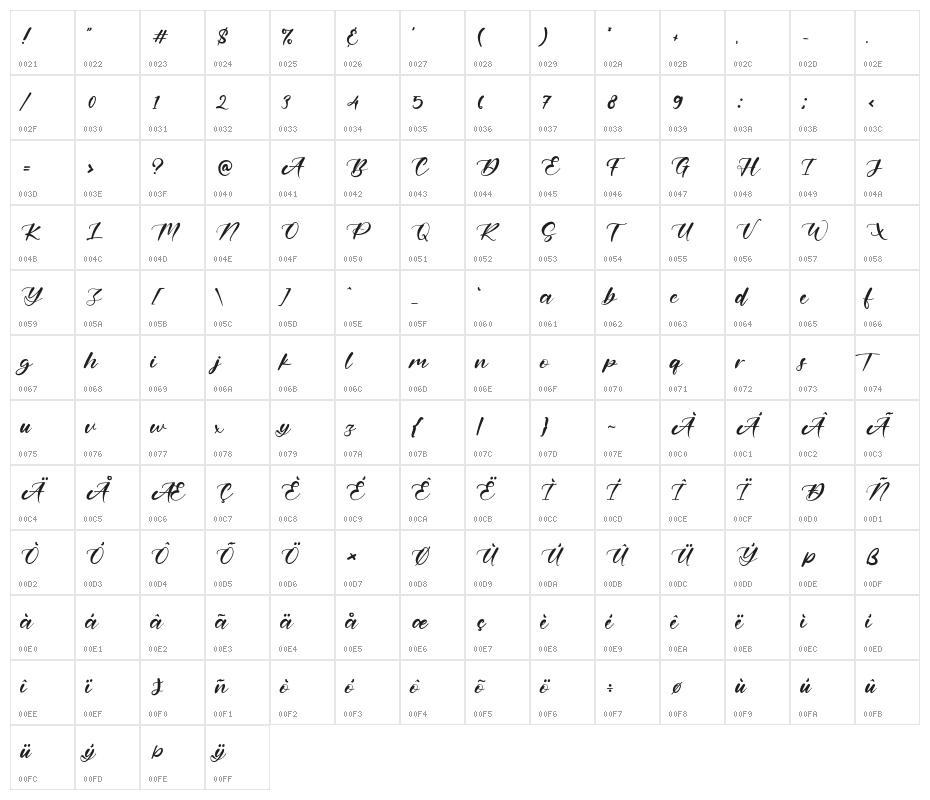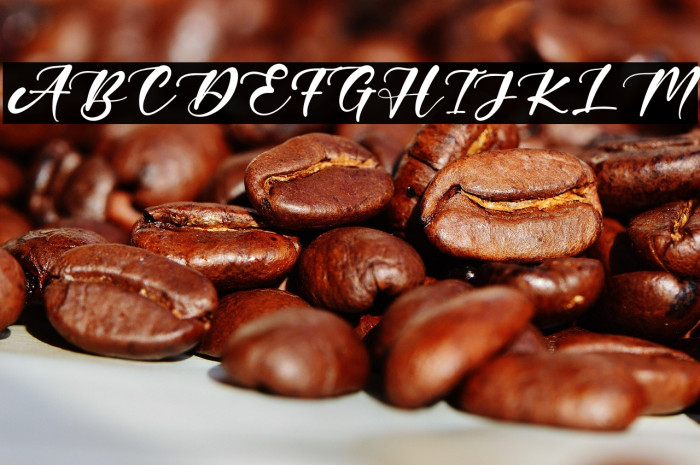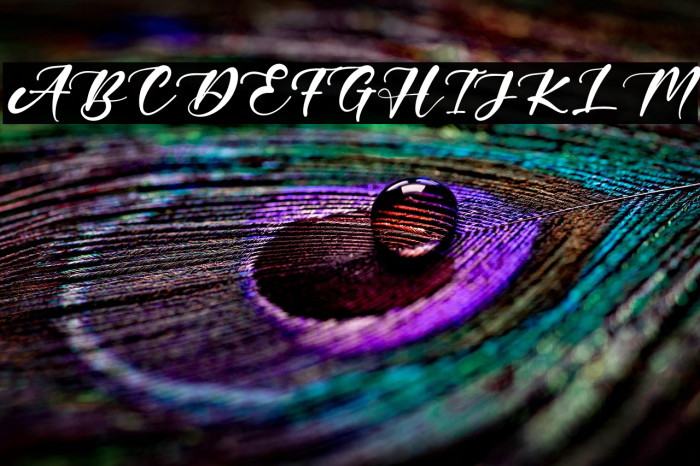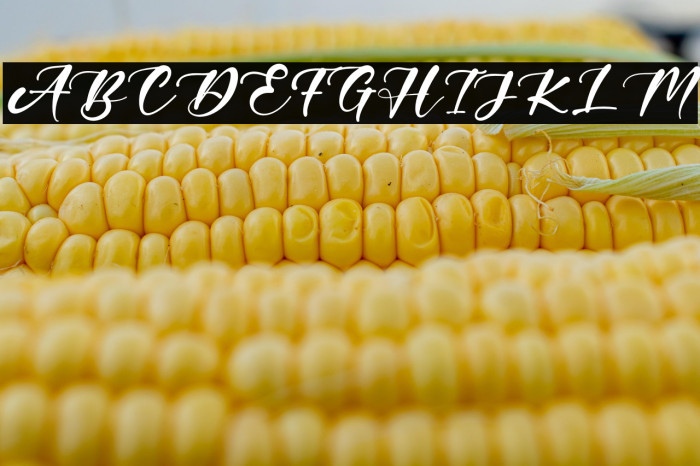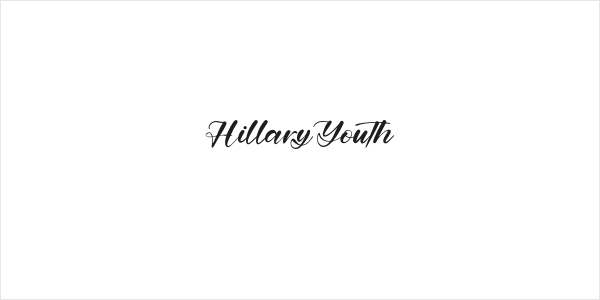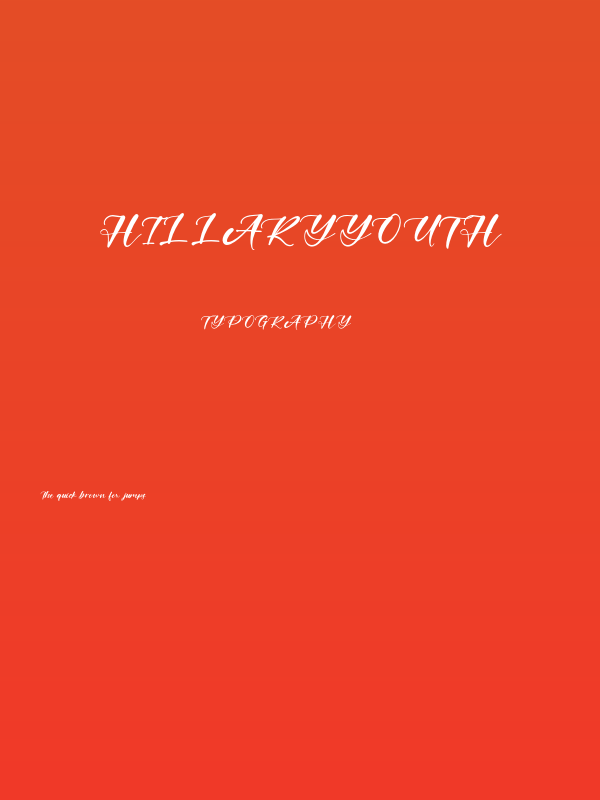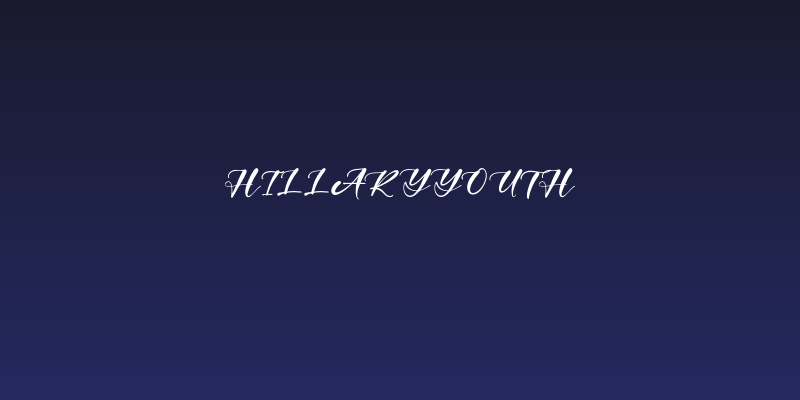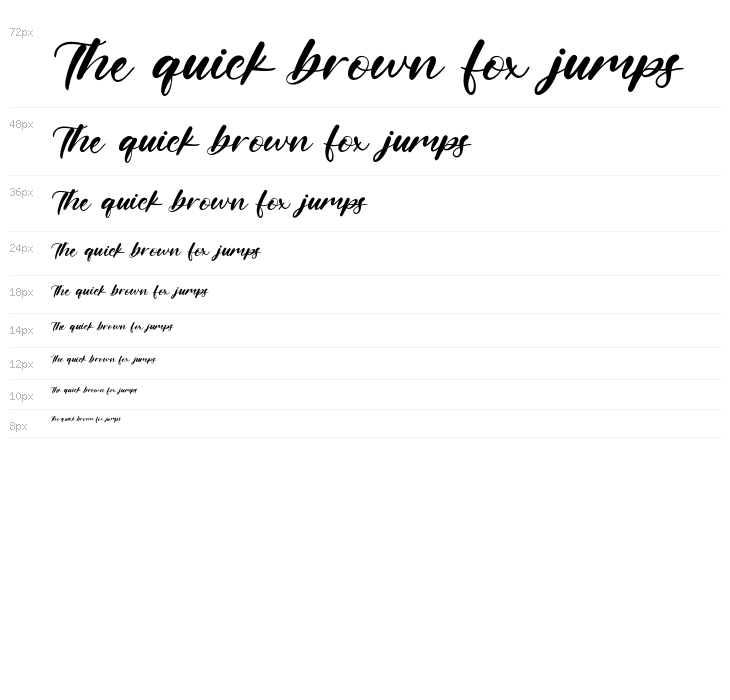
HillaryYouth Font
HillaryYouth Description
This elegant script font features a flowing, cursive style with smooth, connected strokes that give it a sophisticated and artistic appearance. The uppercase letters are gracefully elongated, while the lowercase letters maintain a consistent flow, enhancing readability. The numerals and special characters are designed with the same fluidity, making them blend seamlessly with the alphabet. The font's overall aesthetic is both classic and modern, making it versatile for various design applications.
| Overall Style | Elegant, Artistic |
| Use Case | Logos, Invitations, Decorative Text |
| Proposed Projects | Ideal for wedding invitations, elegant branding, greeting cards, and decorative quotes. |